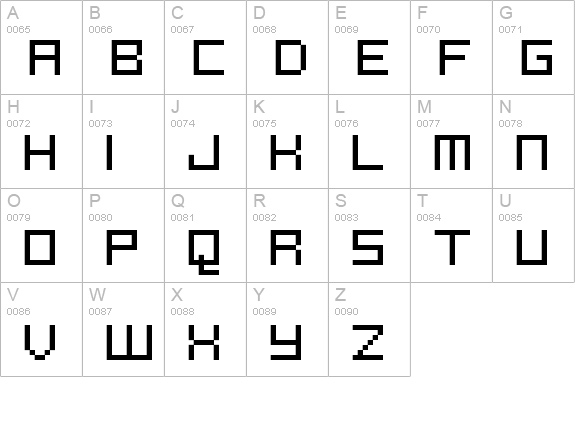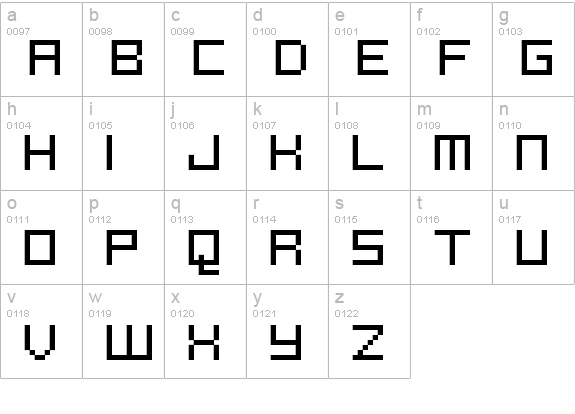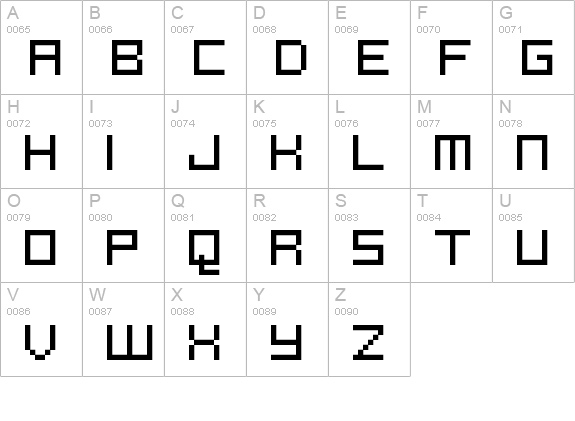
FFF Reaction Condensed Font Details
FFF Reaction Condensed is a distinctive, condensed-width variant in the FFF typeface family \xE2\x80\x94 well suited to design and typography projects.
FFF Reaction Condensed is a striking and modern font that exudes a sense of energy and dynamism. With its condensed letterforms and sharp angles, this font is perfect for creating eye-catching designs that demand attention. The sleek and futuristic appearance of FFF Reaction Condensed makes it ideal for a wide range of projects, from branding and advertising to packaging and web design. What sets FFF Reaction Condensed apart is its versatility and ability to convey a sense of innovation and forward-thinking. Whether used for headlines, logos, or body text, this font adds a contemporary edge to any design it is applied to. The clean lines and geometric shapes of FFF Reaction Condensed give it a bold and impactful presence that is sure to make a statement. Best of all, FFF Reaction Condensed is free to download at FontsMarket.com. This means that you can easily access this unique and stylish font to enhance your creative projects without any cost. Don't miss out on the opportunity to elevate your designs with the modern and captivating aesthetic of FFF Reaction Condensed. Download it today and take your typography to the next level.